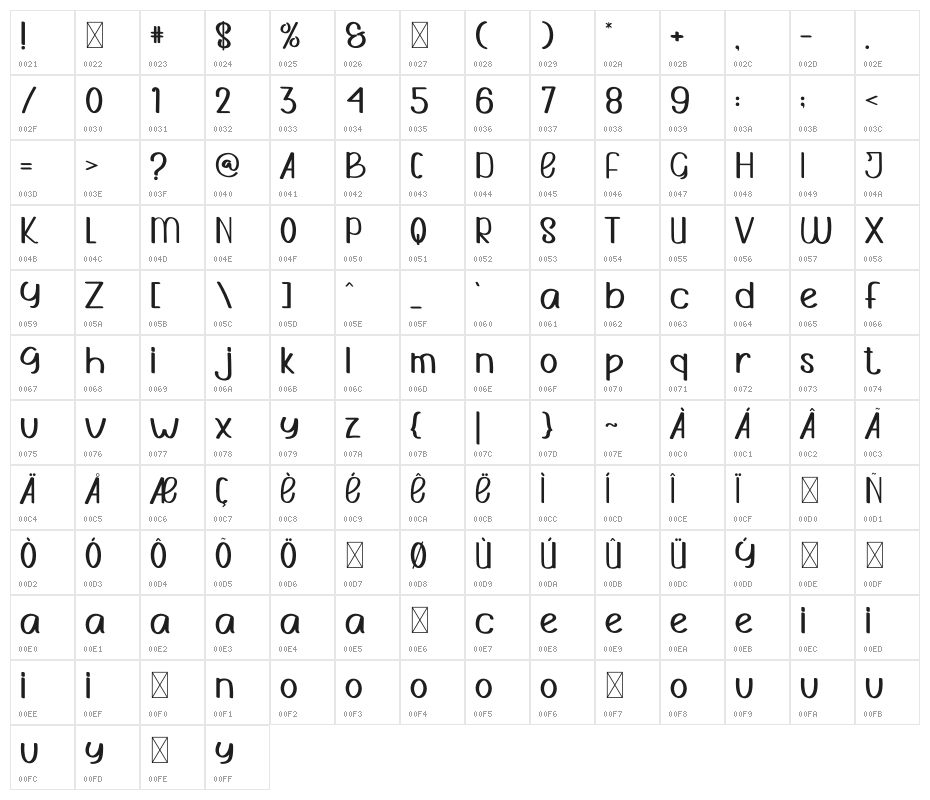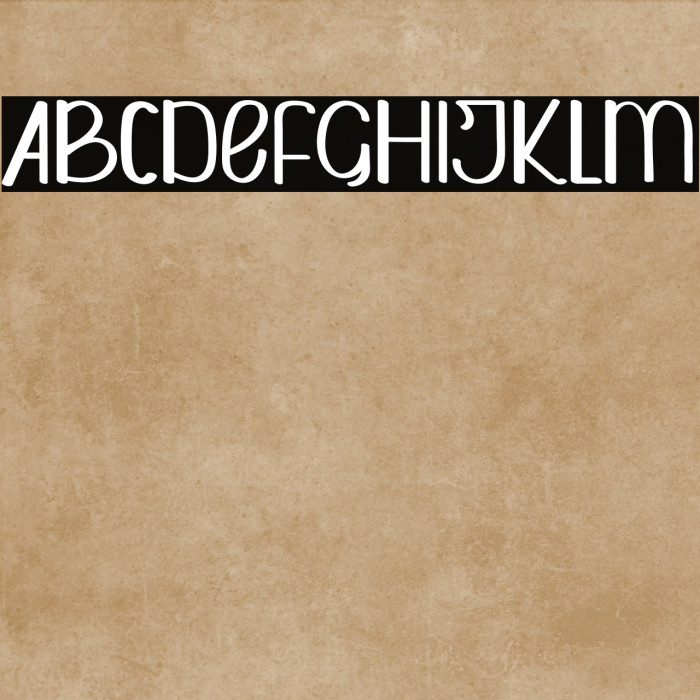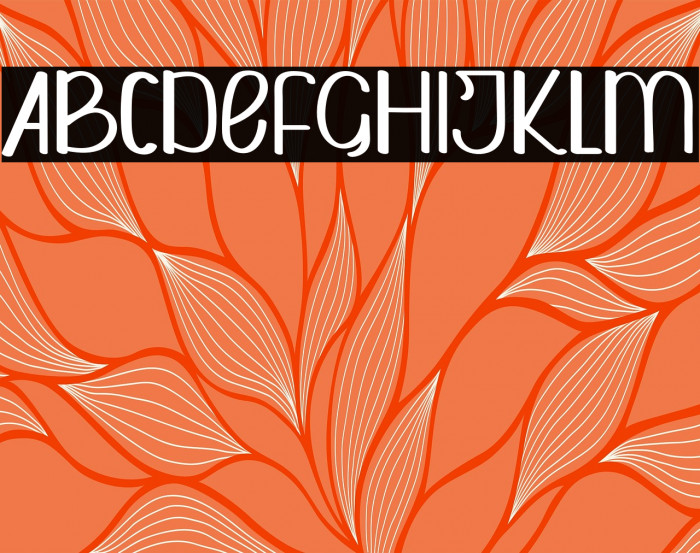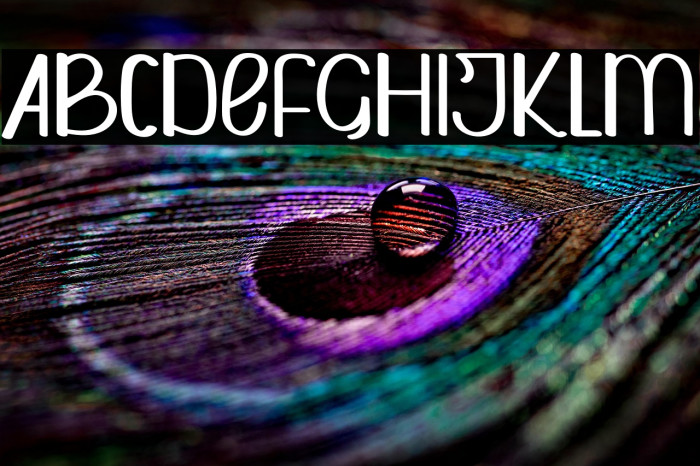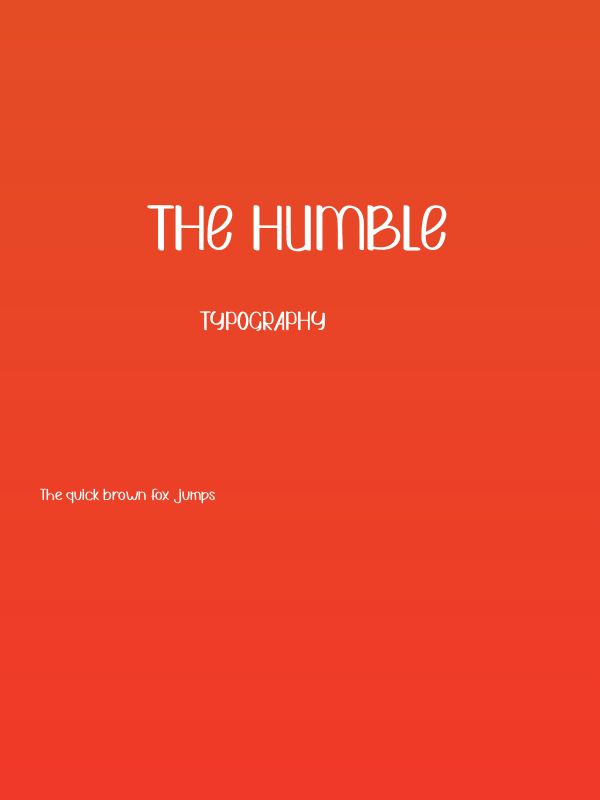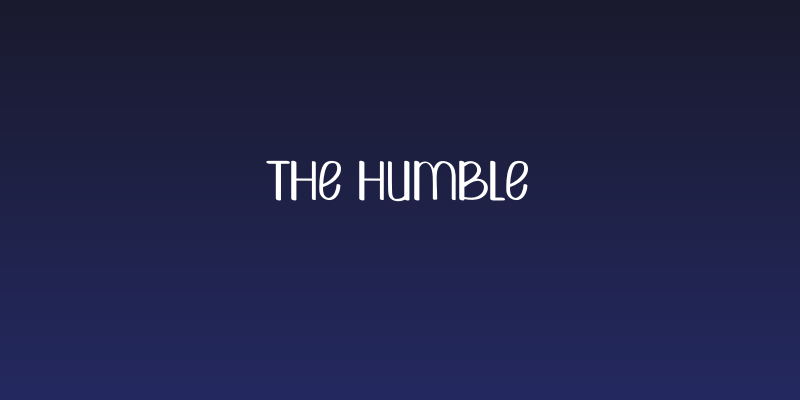
THE HUMBLE Font
THE HUMBLE Description
This font features a playful and rounded style, characterized by its smooth curves and friendly appearance. The letters are bold and have a consistent stroke width, giving them a uniform look. The uppercase letters are tall and slightly narrow, while the lowercase letters maintain a similar width, creating a cohesive design. Numbers and special characters follow the same rounded and bold aesthetic, ensuring readability and a harmonious appearance. This font's unique style makes it suitable for projects that require a touch of whimsy and approachability.
| Proposed Projects | Ideal for children's books, playful branding, greeting cards, and casual invitations. |